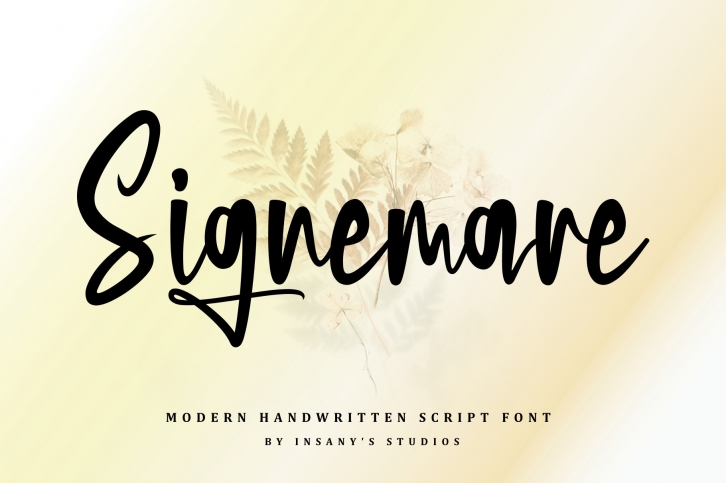
Signemare is a modern and stylish handwritten font, described by an elegant and trendy touch. This font was designed to enhance the beauty of your projects. Signemare is PUA encoded, which means you can access all of the glyphs, ligatures and alternates.